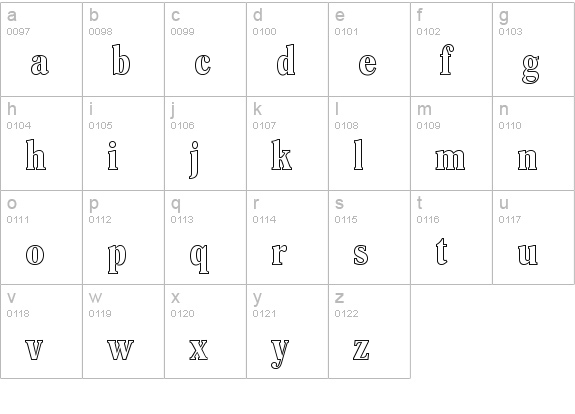
Concorde BE Bold Condensed Outline Font Details
Concorde BE Bold Condensed Outline is a strong, high-contrast, condensed-width variant in the Concorde typeface family \xE2\x80\x94 well suited to headlines, attention-grabbing titles, and strong calls-to-action.
Concorde BE Bold Condensed Outline font is a striking and modern typeface that exudes confidence and energy. Its bold and condensed design makes it perfect for headlines, titles, and other display purposes where you want to make a statement. The outline style adds a unique and eye-catching touch to any design project. What's even better is that this fantastic font is available for free! Yes, you read that right - you can download Concorde BE Bold Condensed Outline font for free at FontsMarket.com. Whether you're working on a graphic design project, creating social media graphics, or designing a poster, this font will surely make your text stand out. Don't miss out on the opportunity to add this stylish and impactful font to your collection today!